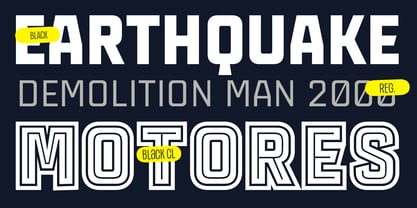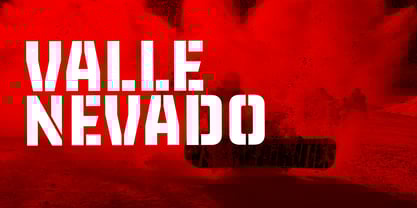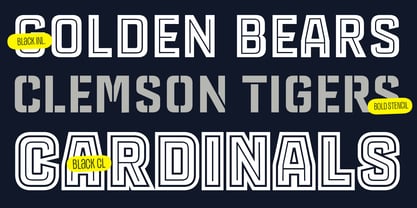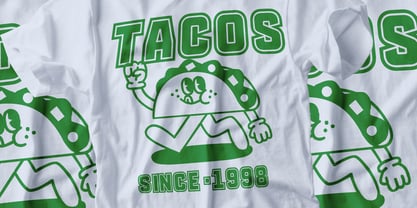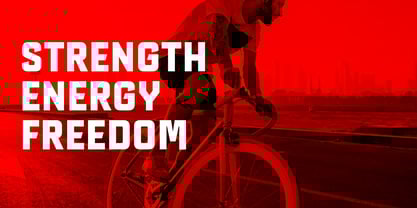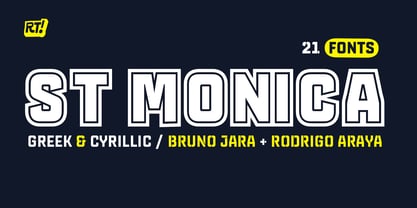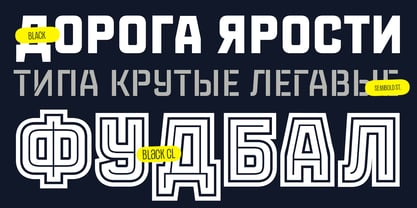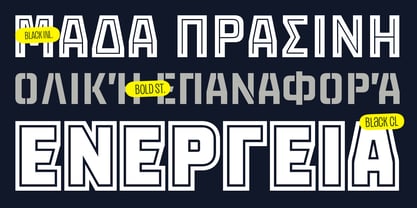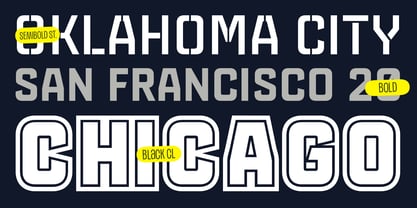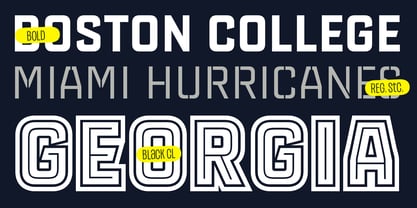
St Monica
by RodrigoTypo
The St Monica Font Family was designed by Rodrigo Araya Salas, Bruno Jara Ahumada and published by RodrigoTypo. St Monica contains 21 styles and family package options.
"St. Monica" is a 21-font family, perfect for headlines, posters, or themes related to extreme action or sports. It contains both the Cyrillic and Greek alphabets.